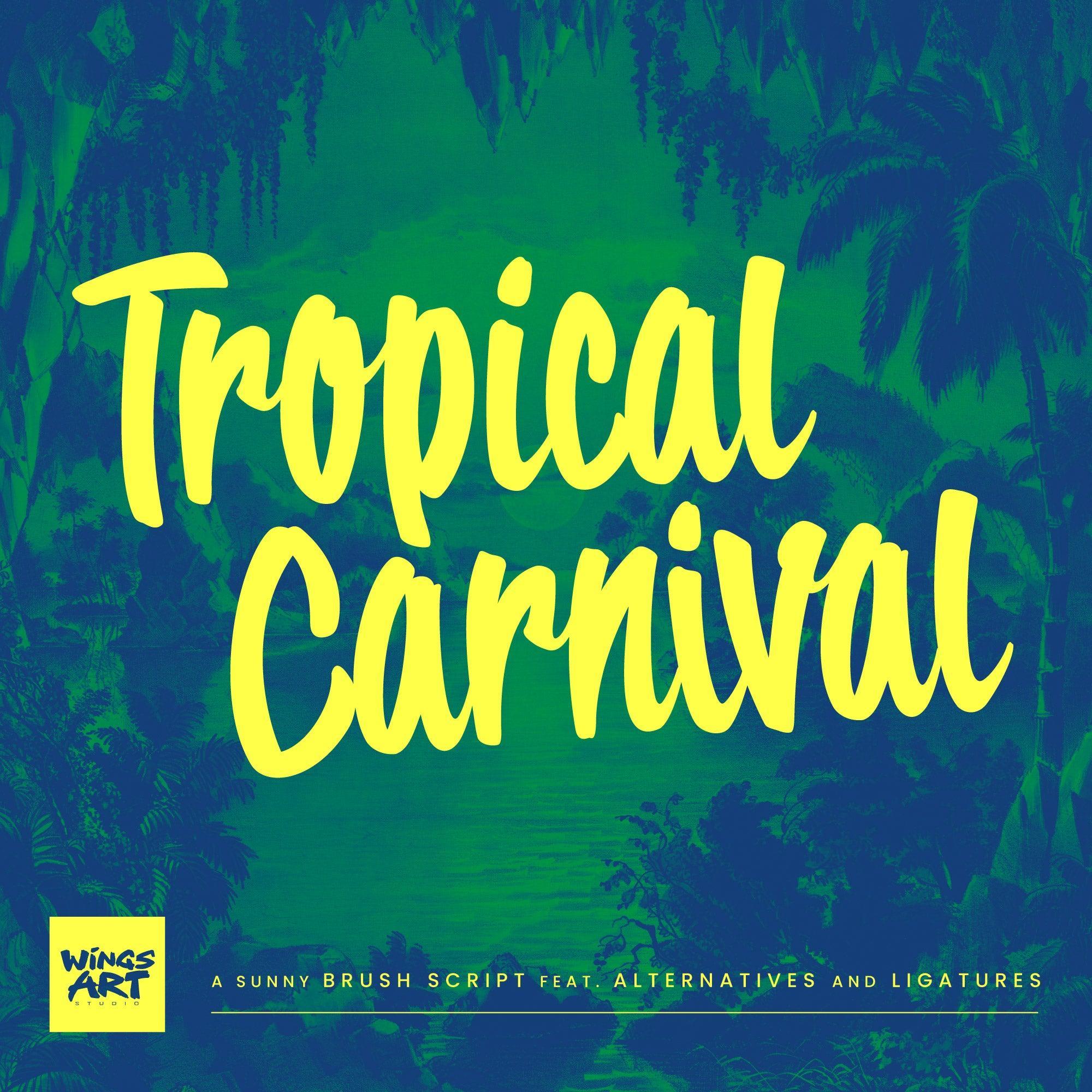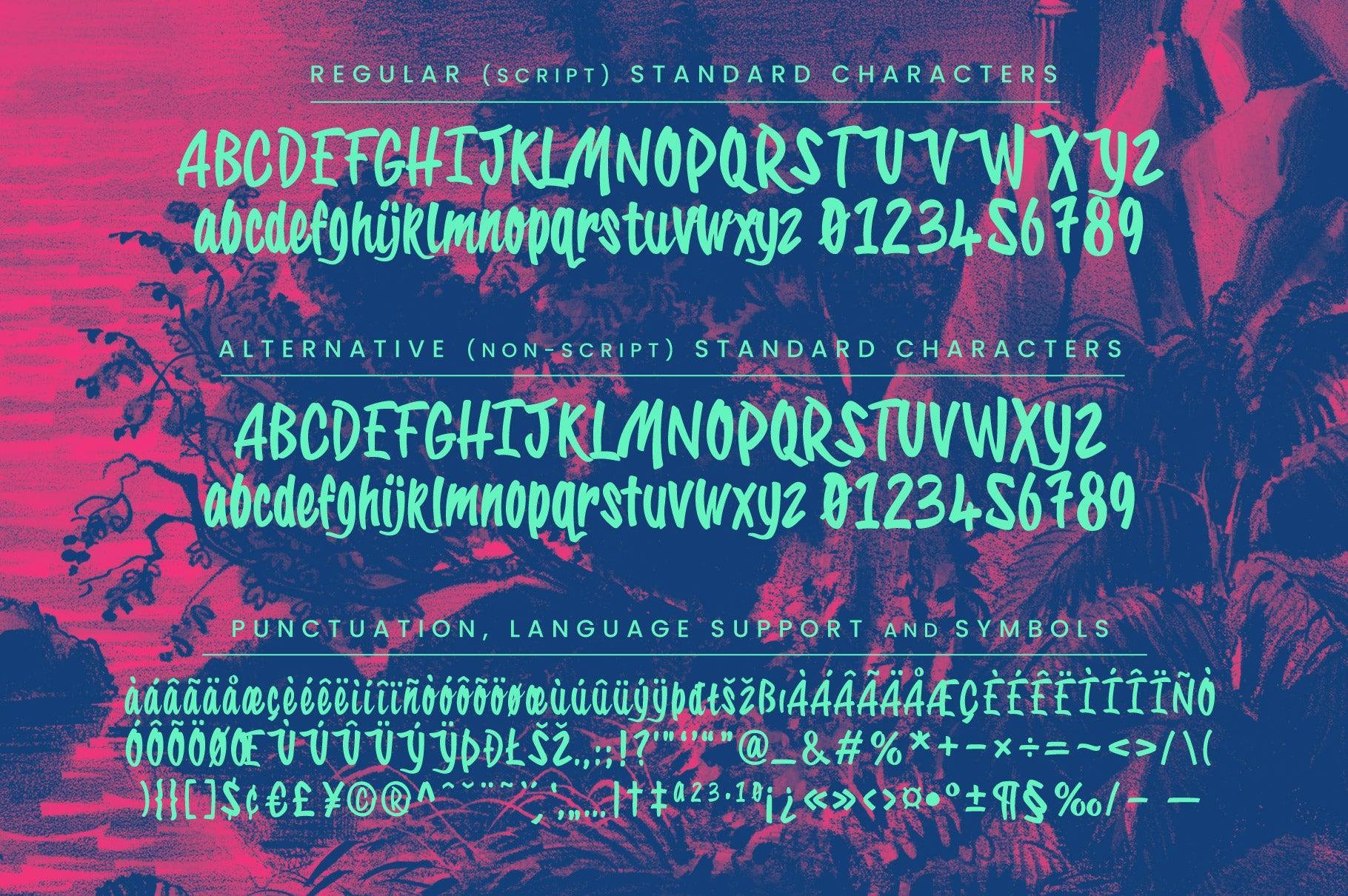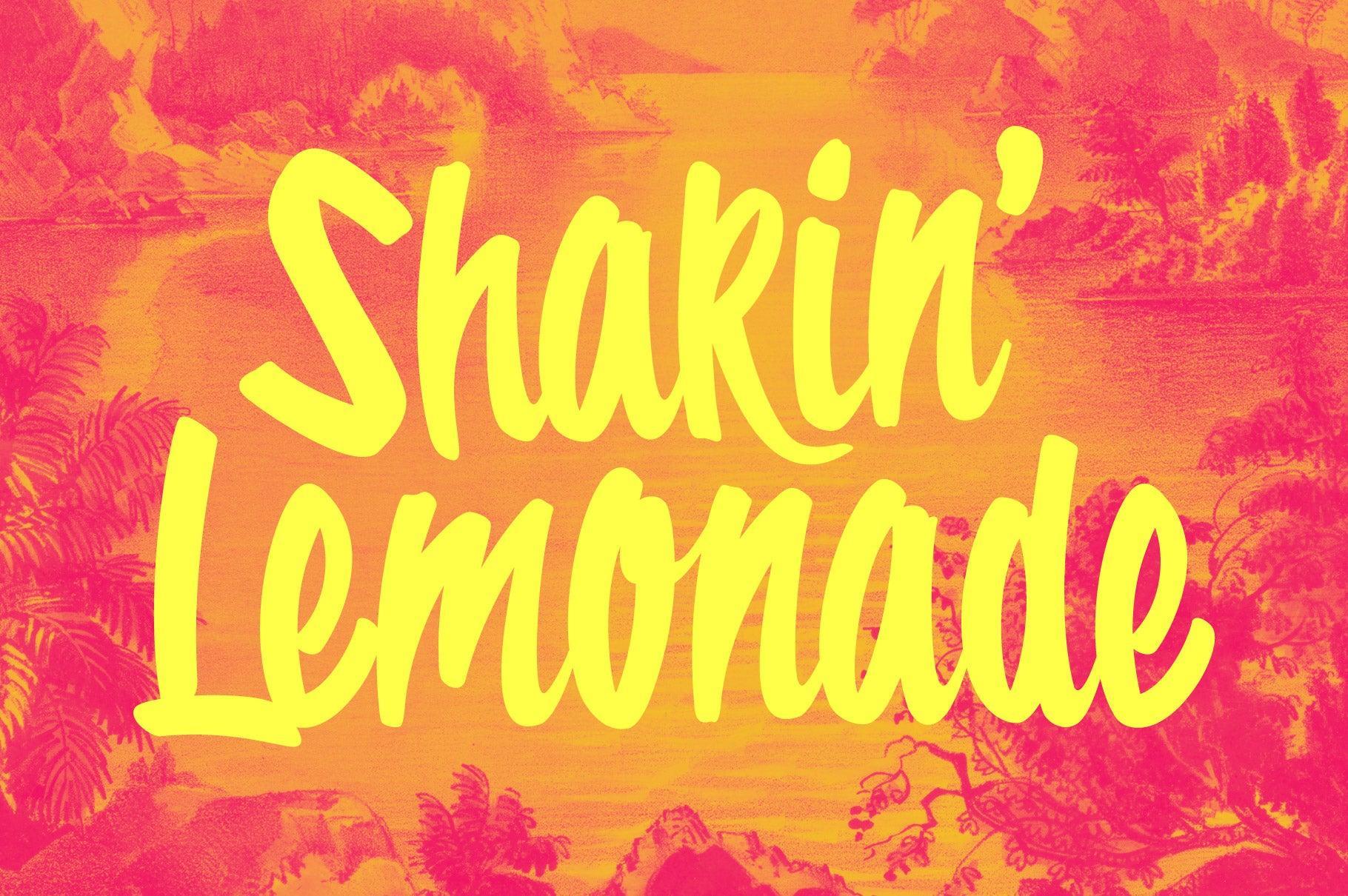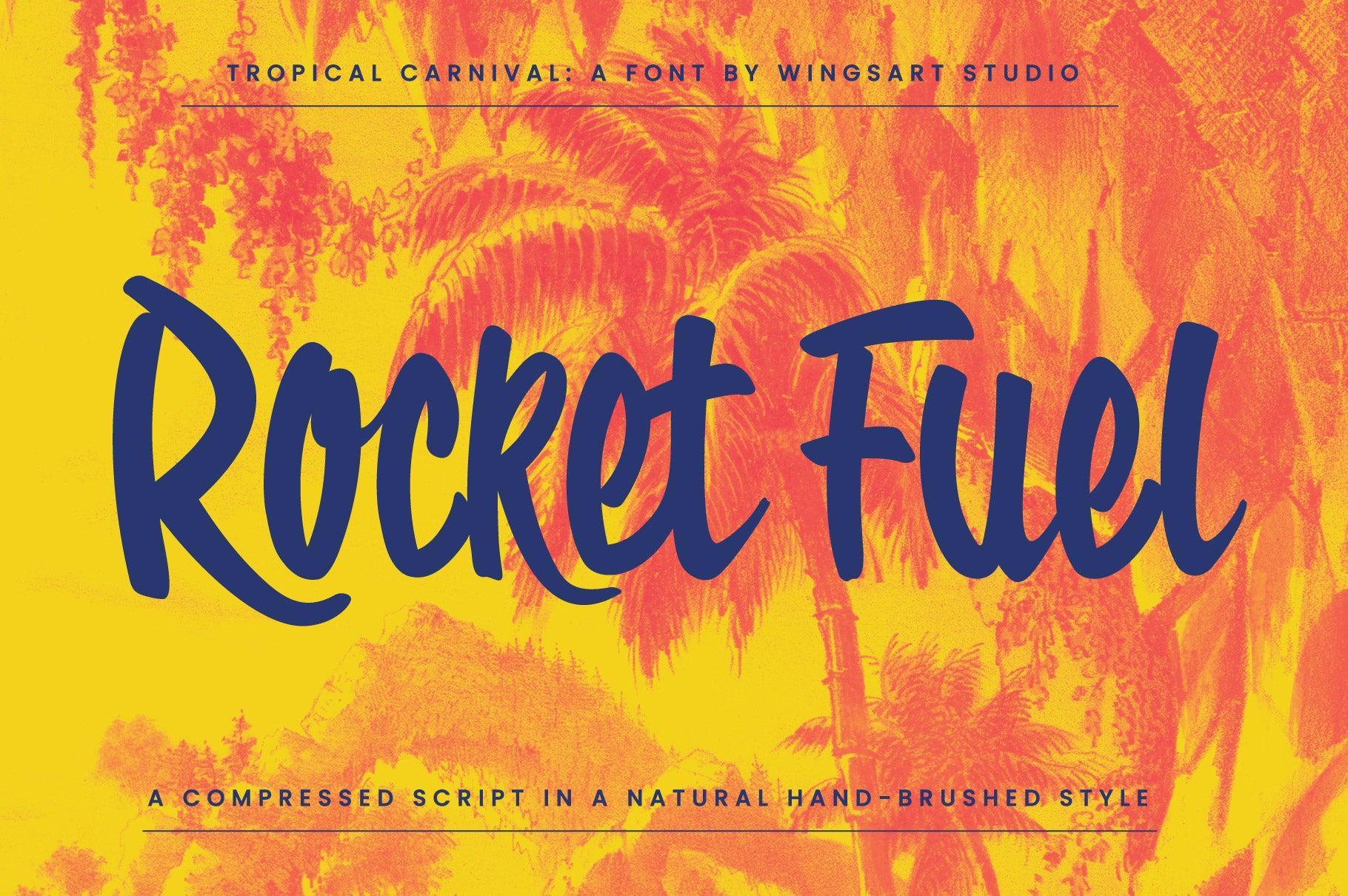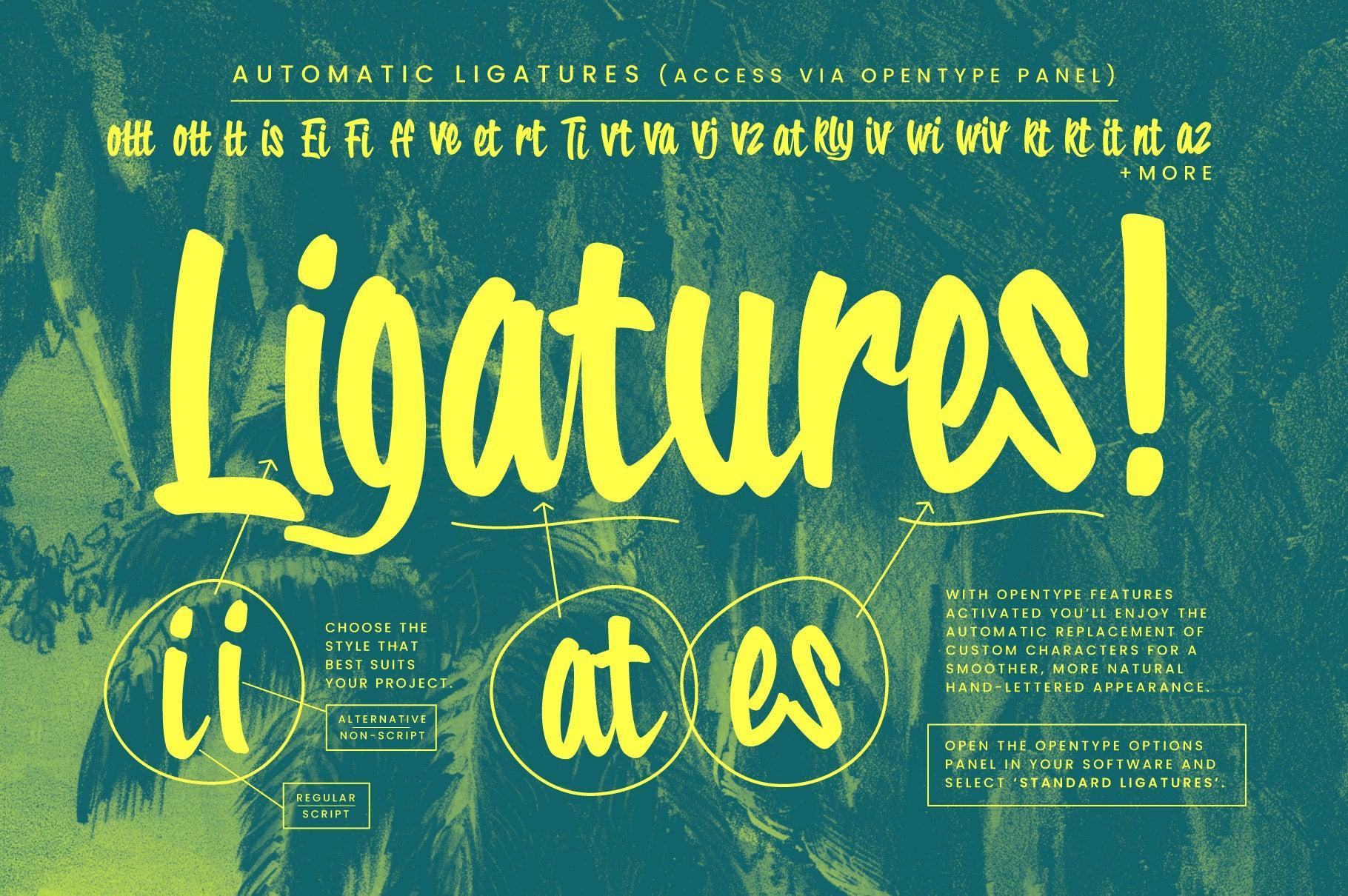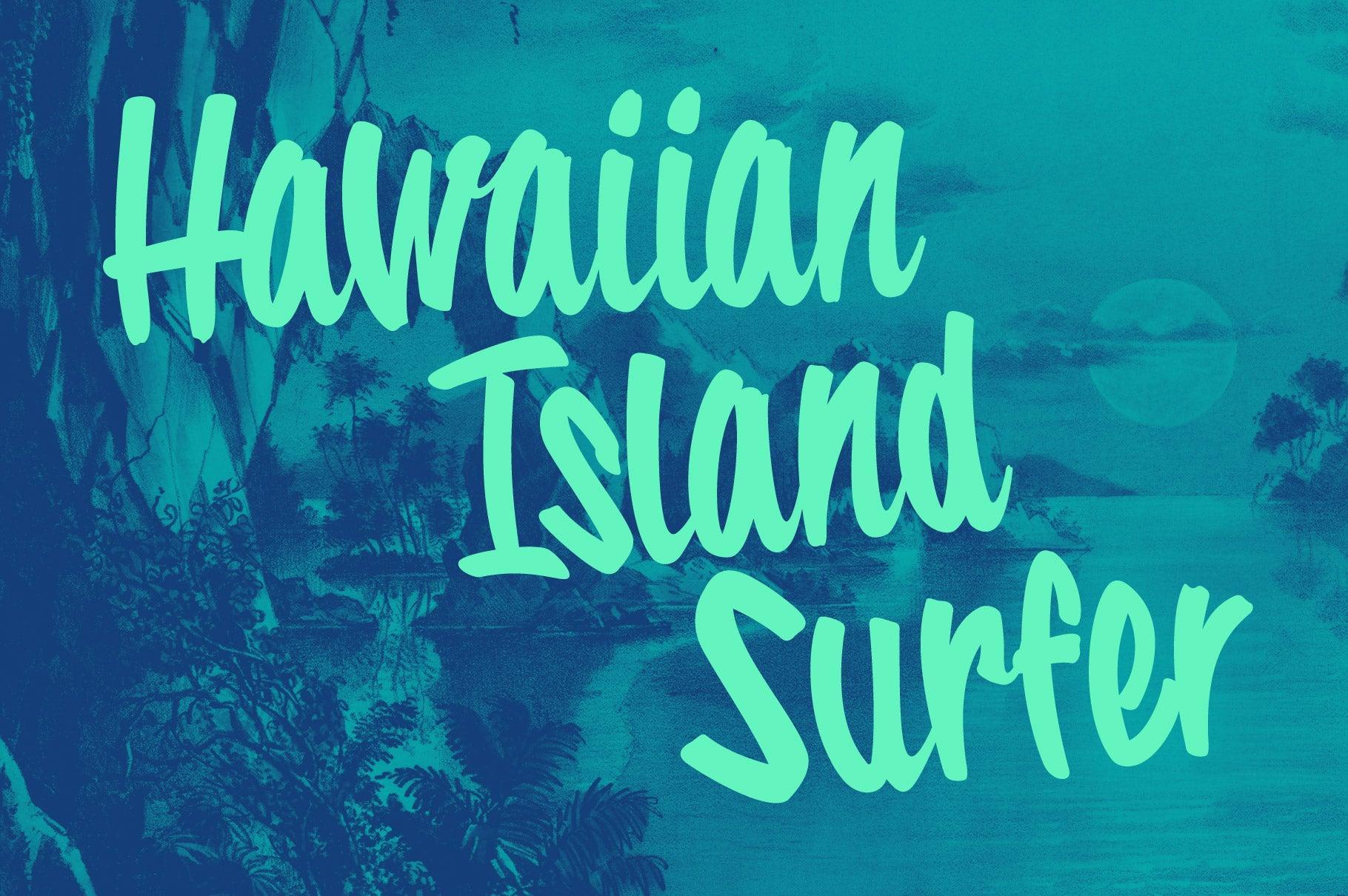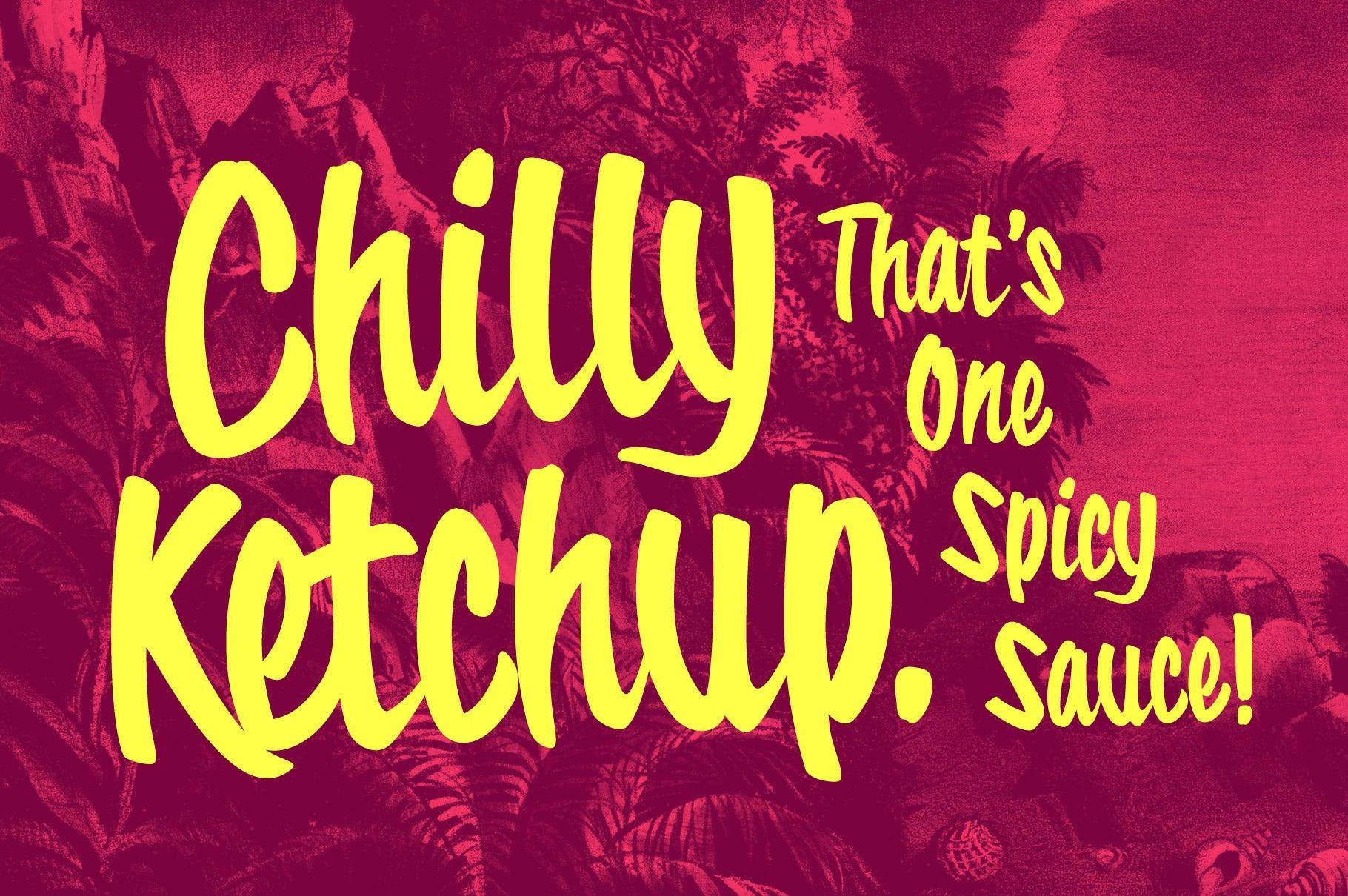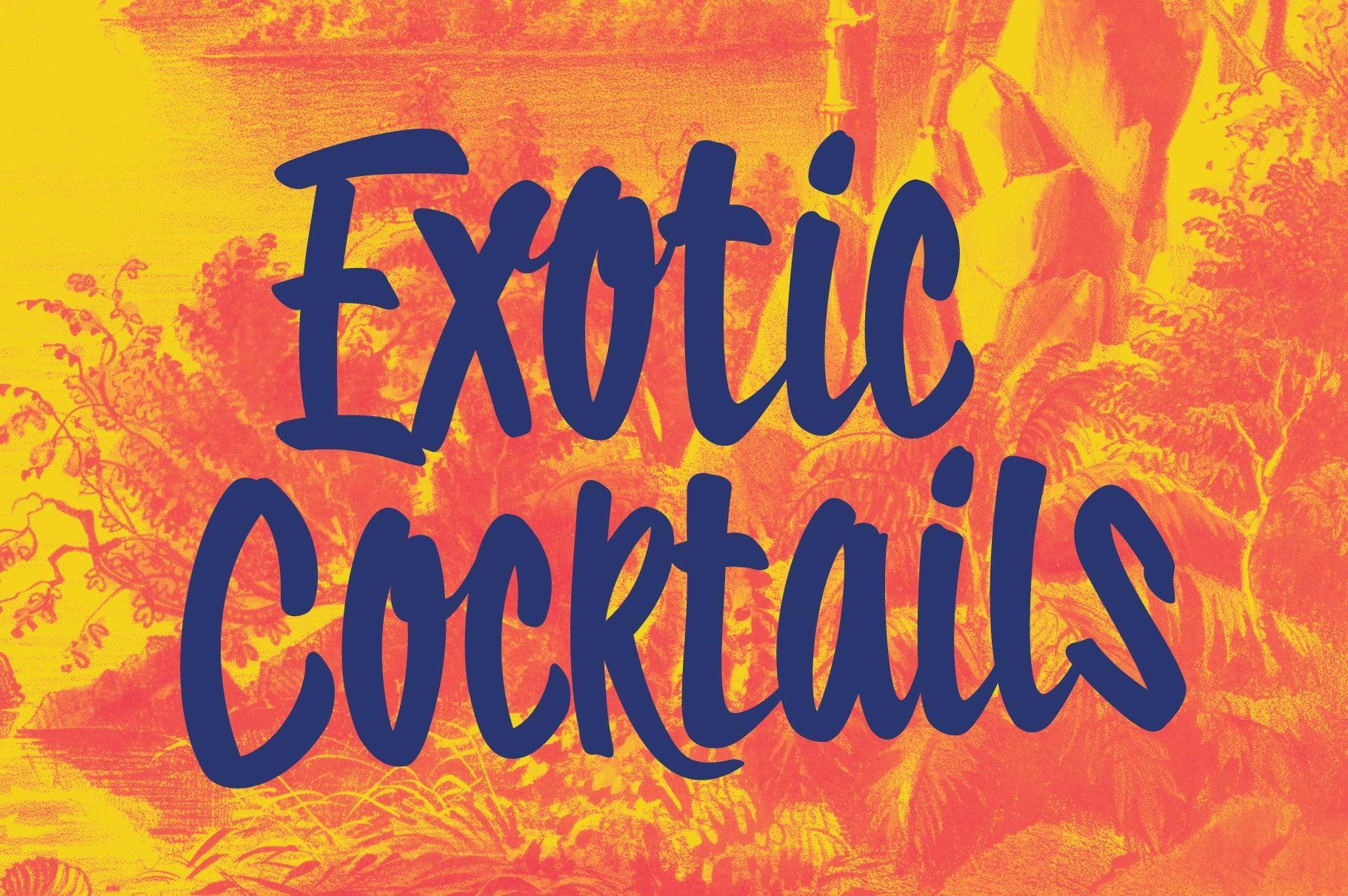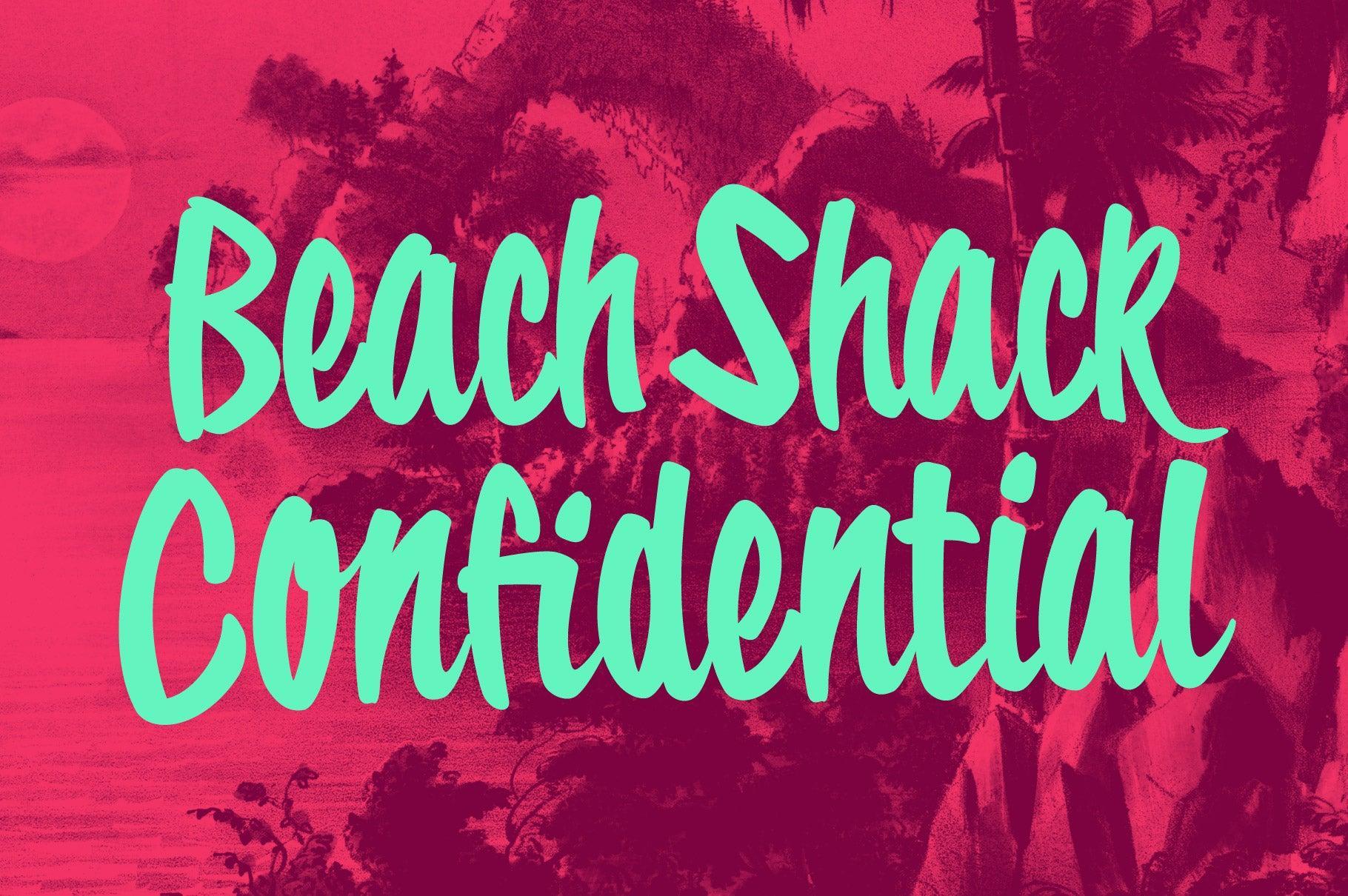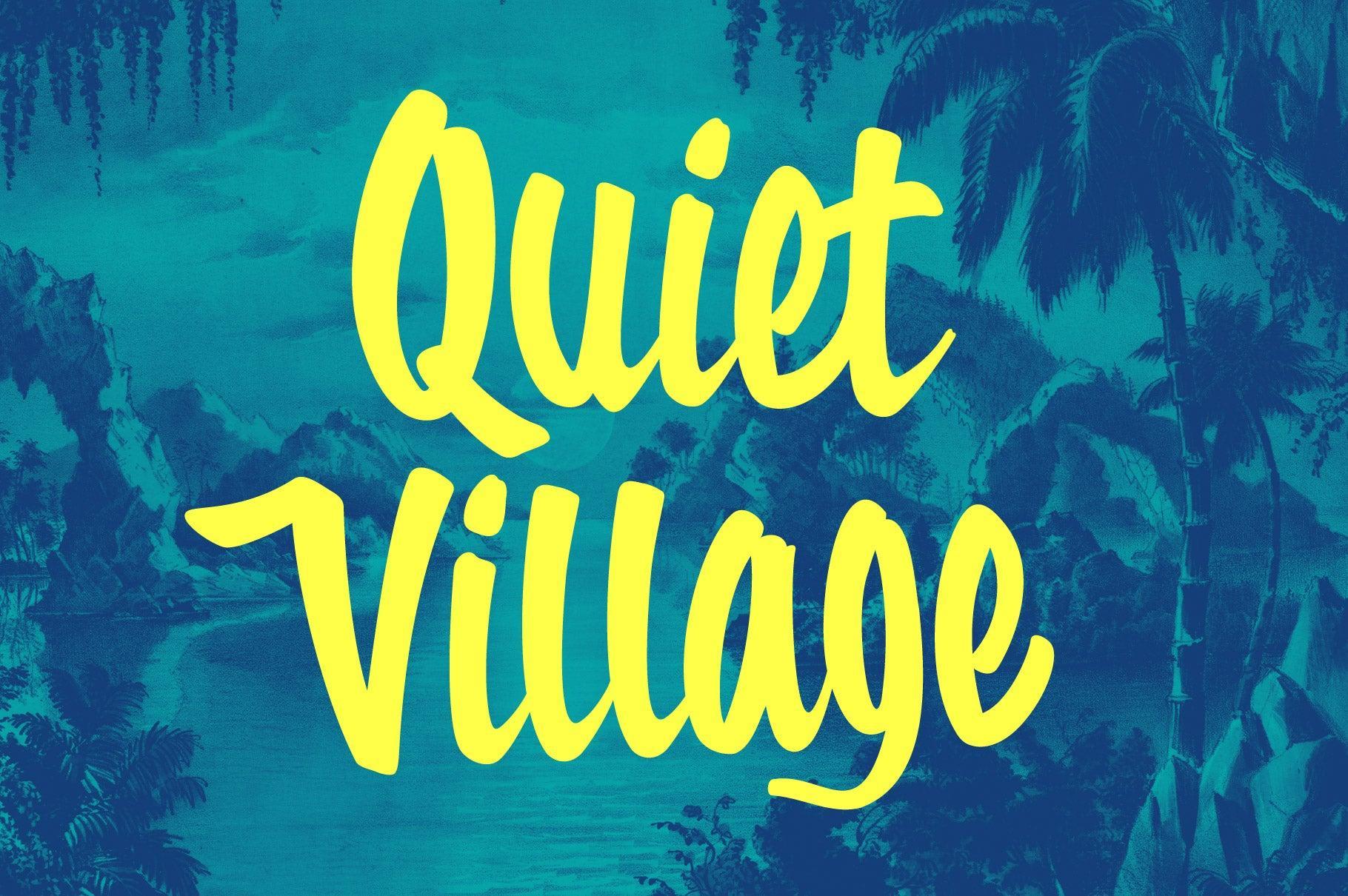
Tropical Carnival: A Sunny Brush Script Font
Tropical Carnival is a sunny brush script font featuring a natural handwritten style. It includes a complete set of uppercase and lowercase characters, numerals, punctuation, symbols, and alternative characters, along with OpenType features for a natural handwritten flow.
Ideal for summer-themed graphic design and branding projects. Perfect for food and beverage packaging, retro tiki posters, and vibrant album covers, ensuring a cheerful and laid-back aesthetic that captures the essence of a tropical getaway.